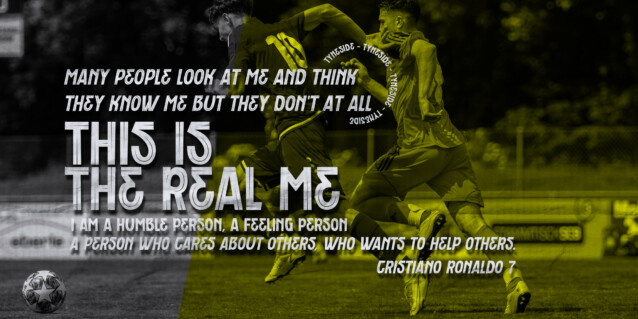
Tyneside Font
Tyneside Font is a unique and interesting display font. A little bit quirky, this font looks incredibly adept in a wide variety of contexts!